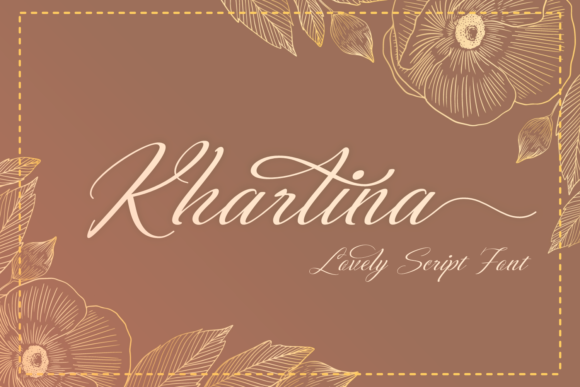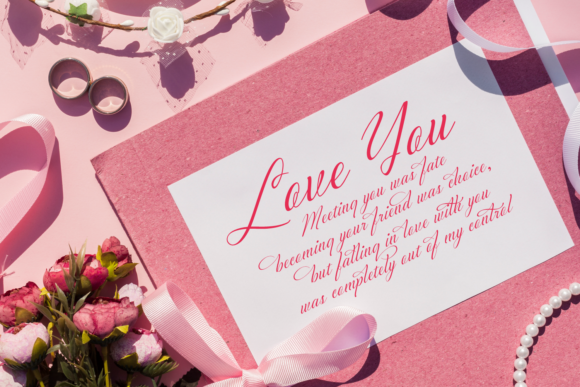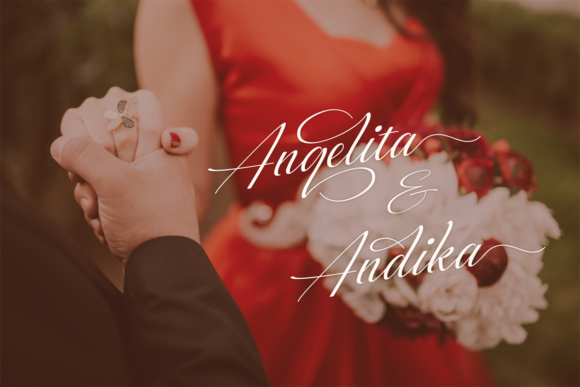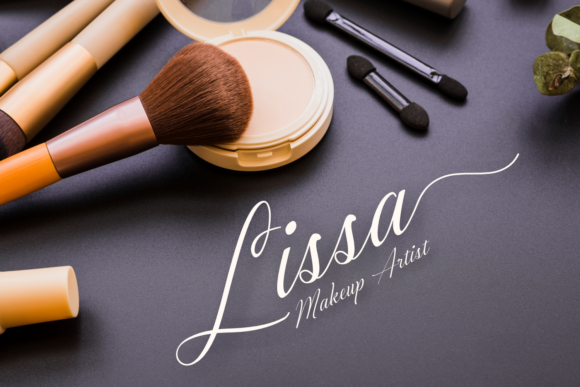
HomeScript FontsKhartina Font Script Fonts Khartina Font FacebookXPinterestWhatsApp Khartina Font Poster 2 Khartina Font Poster 3 Khartina Font Poster 4 About Khartina Font Khartina is a lovely script font with elegant flowing curves. It can add a feminine touch to any crafting project! DOWNLOAD ON CREATIVE FABRICAThis font is sold and delivered by Creative Fabrica. Font Canyon may earn a commission if you buy through this link. People also explored Venturas Font Sweety Klaus Script Font Santa’s Land Font Playground Font Stovia Font Great Meadow Font Quick Roll Font Sophia Font Orname Font 323 0 TagsKhartina Font Previous articleRonallatie FontNext articleBrother Zoned Font LEAVE A REPLY Cancel reply Comment: Please enter your comment! Name:* Please enter your name here Email:* You have entered an incorrect email address! Please enter your email address here Website: Save my name, email, and website in this browser for the next time I comment. Personal Use Free Zero Hour Personal Use Free Read more about this font Glowing Personal Use Free Read more about this font Imelda Personal Use Free Read more about this font Alligator Font Personal Use Free Read more about this font BLOG Free Fonts Risk: Why Free Fonts Can Be Dangerous for Designers Free Fonts Risk: Why Free Fonts Can Be Dangerous for Designers Using free fonts is a common practice in web and graphic design. However, the... Free vs Paid Fonts: Why Investing in Premium Fonts Is Worth It Fonts That Capture the Spirit of New York City Elegant Wedding Invitation Fonts – Handwritten & Script Fonts